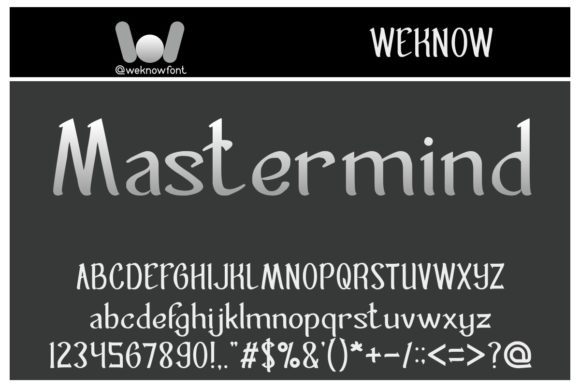
Mastermind: A Fancy and Versatile Slab Serif Font
Mastermind is a distinctive slab serif font that combines fanciness with versatility. This stylish typeface is designed to enhance a wide range of creative projects, making it a valuable addition to any designer’s toolkit.
Key Features of Mastermind
- Fancy Design: Offers elegant and decorative letterforms that add sophistication to designs.
- Slab Serif Structure: Incorporates the characteristic thick, rectangular serifs typical of slab serif fonts.
- Versatile Application: Suitable for a wide range of projects, from logos to website designs.
- Eye-Catching Details: Unique characteristics that make designs stand out with a fancy flair.
- Multi-Purpose Use: Adaptable for various media, including print and digital platforms.
Ideal Uses for Mastermind
Mastermind’s unique characteristics make it particularly well-suited for:
- Logos and logotypes
- Headlines and titles
- Corporate and brand identity
- Apparel industry designs
- Posters and promotional materials
- Music and movie graphics
- Game design elements
- Magazine and book covers
- Comic and cartoon titles
- Social media content (YouTube, Instagram)
- Website headers and digital content
When incorporating Mastermind into your designs, consider these tips:
- Use for headlines or short blocks of text to showcase its fancy and stylish character
- Experiment with different sizes to highlight the font’s unique details
- Consider pairing with simpler sans-serif fonts for body text to create contrast
- Take advantage of its versatility across various creative projects
Mastermind is an excellent choice for designers looking to add a fancy and versatile slab serif font to their typographic toolkit. Its ability to enhance various design projects with a touch of elegance makes it stand out in the world of typography. Whether you’re working on logo designs for sophisticated brands, creating layouts for magazines, or developing content for digital platforms, Mastermind offers the perfect blend of style and adaptability.
Furthermore, Mastermind’s versatility allows it to shine in various contexts. From vintage-inspired designs with a modern twist to more playful layouts that need a touch of sophistication, this font can elevate your projects. Its fancy style works particularly well in designs that require a thoughtful and refined mood.
In conclusion, Mastermind is a font that truly lives up to its name, offering a strategic blend of style and versatility. Its ability to work well in both elegant, minimalist projects and more elaborate layouts showcases its flexibility. For those looking to add a touch of fancy style with a timeless feel, Mastermind can even enhance themed creations with its unique, sophisticated twist. It’s the perfect choice for designers seeking to make a strong, stylish impact across a wide range of creative projects.